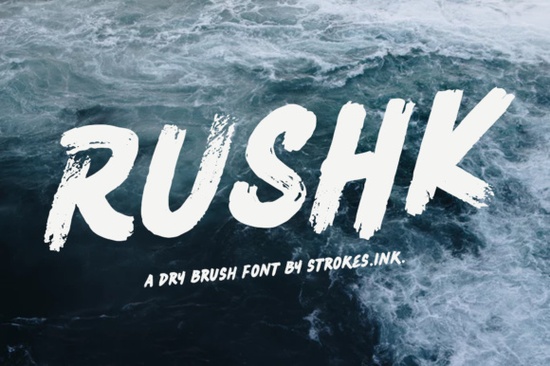
Rushk is a dry brush sans serif display font that gives designs a raw, handcrafted texture. If you're working on a project that needs to feel relaxed, edgy, or a little gritty, this typeface delivers exactly that. It works especially well for headlines, logos, posters, and apparel mockups where you want personality without looking too polished. Whether you're a print-on-demand seller, a small business owner, or someone who just loves playing with typography, Rushk brings something different compared to the clean, overused fonts you see everywhere.
What Makes a Dry Brush Font Worth Using?
Dry brush fonts have uneven, textured strokes that mimic hand-painted lettering. They don't look perfect and that's the whole point. This kind of typeface adds warmth and character to a design in a way that standard sans serifs simply can't. The slightly rough edges catch the eye and make text feel more human.
You'll find this style works well for:
- Band merch and music posters – gritty textures match the vibe naturally
- Streetwear branding – gives logos an authentic, hand-done look
- Social media graphics – stands out in a feed full of smooth, polished fonts
- Greeting cards and packaging – adds a handmade feel without actual hand-lettering
- Seasonal designs – especially for fall, rustic, or outdoor-themed projects
The textured quality of Rushk makes it feel personal. People respond to designs that look like a real person made them, not a machine.
Where Can You Use a Font Like This?
Rushk works across both digital and print projects. Since it's a display typeface, it's built for large sizes think headlines, titles, banners, and hero sections on websites. At small sizes, the dry brush detail can get lost, so keep it big and bold for the best results.
Here are some practical uses:
- T-shirt designs – especially for POD sellers on platforms like Redbubble or Merch by Amazon
- Logo concepts – great for brands that want an organic, approachable look
- Event flyers – music festivals, craft fairs, pop-up shops
- Website headers – pairs nicely with a simple body font underneath
- Stickers and decals – the texture translates well to physical products
If you're pairing Rushk with other fonts, go simple on the body text. A clean sans serif or a light serif keeps things readable while letting the display font do the heavy lifting.
How Does It Compare to Other Display Fonts?
There are plenty of display fonts out there, and the right choice depends on the mood you're going for. Rushk sits in a specific lane it's relaxed, textured, and a little rebellious. But there are times when a different style fits better.
Each of these serves a different purpose. Rushk is your go-to when the project calls for texture and attitude rather than elegance or whimsy.
- License terms – make sure the license covers your specific use. Commercial use, POD, and physical products may have different rules depending on what you purchase.
- Size and resolution – dry brush textures look best at larger sizes. Test at your final output size before committing to a design.
- Color contrast – textured fonts can fade into busy backgrounds. Use solid colors or simple backgrounds so the lettering stays readable.
- Pairing choices – avoid pairing Rushk with another textured or decorative font. One standout typeface per design is usually enough.
For general guidance on pairing and readability, Google Fonts Knowledge covers typography fundamentals in a practical, beginner-friendly way.
Quick Checklist Before You Download
- ✅ You know what projects you'll use it for (headlines, logos, merch, etc.)
- ✅ You've confirmed the license matches your intended use
- ✅ You've picked a simple body font to pair with it